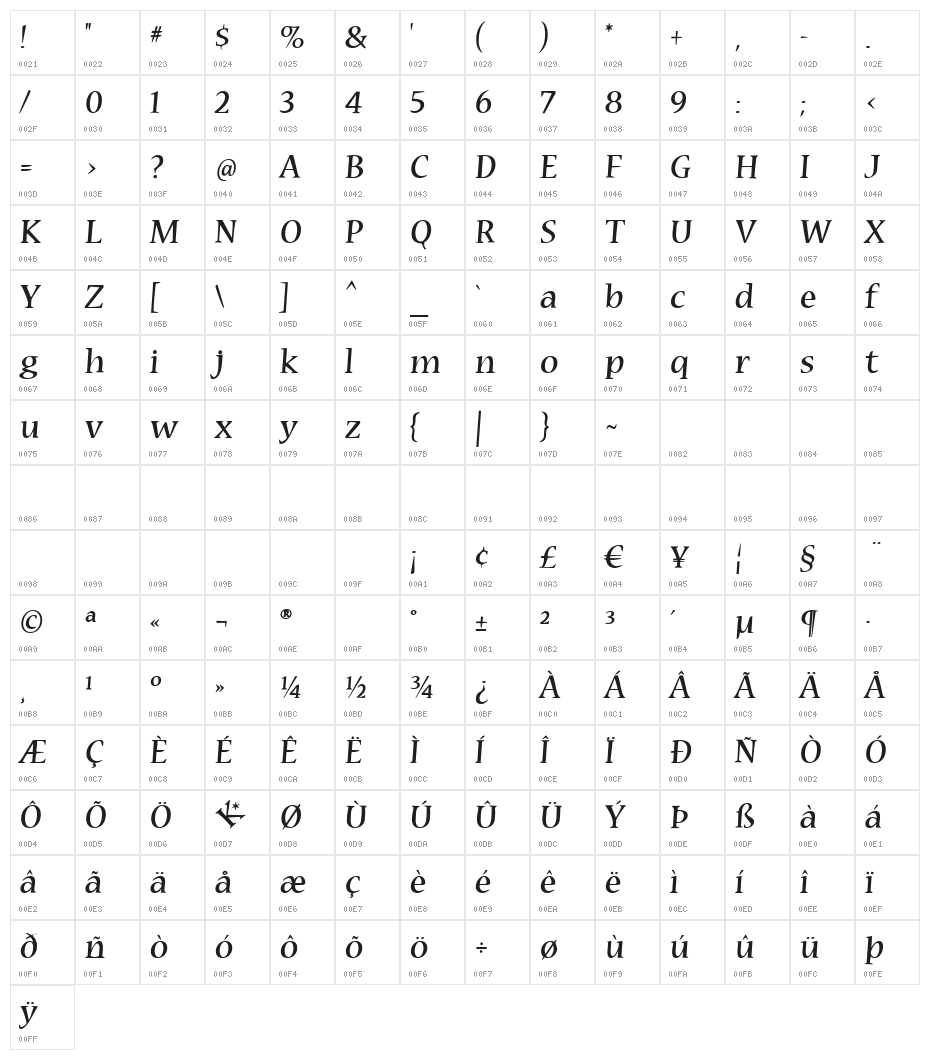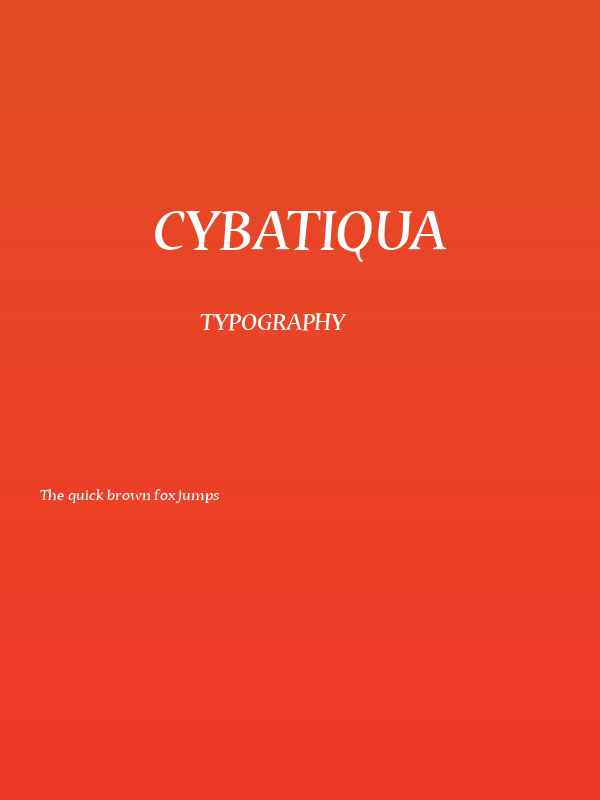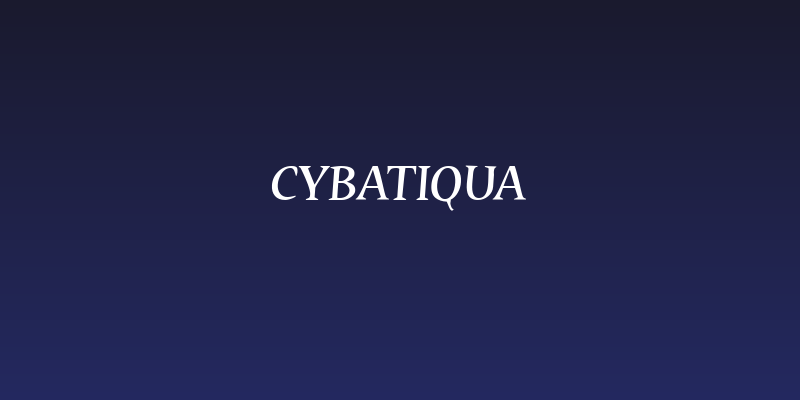
Cybatiqua Font
Cybatiqua Description
This font features a classic serif design with elegant curves and a refined appearance. The uppercase letters are bold and commanding, while the lowercase letters maintain a consistent flow with slightly rounded edges. The numerals are clear and distinct, matching the overall sophisticated style. Special characters are well-integrated, maintaining the font's cohesive look. The font's contrast is medium, providing a balanced stroke thickness that enhances readability without sacrificing style. It is suitable for both digital and print media, offering versatility in various design contexts.